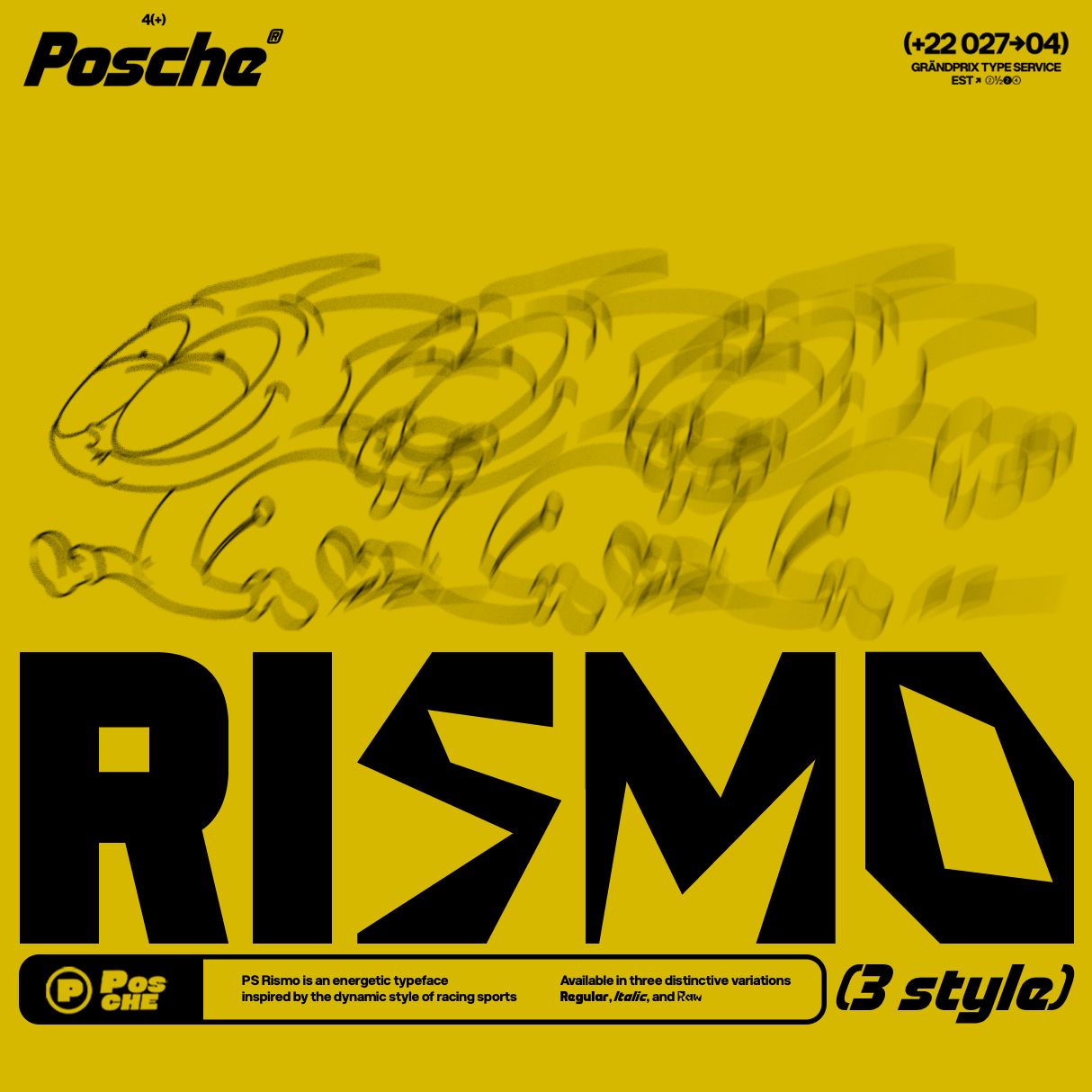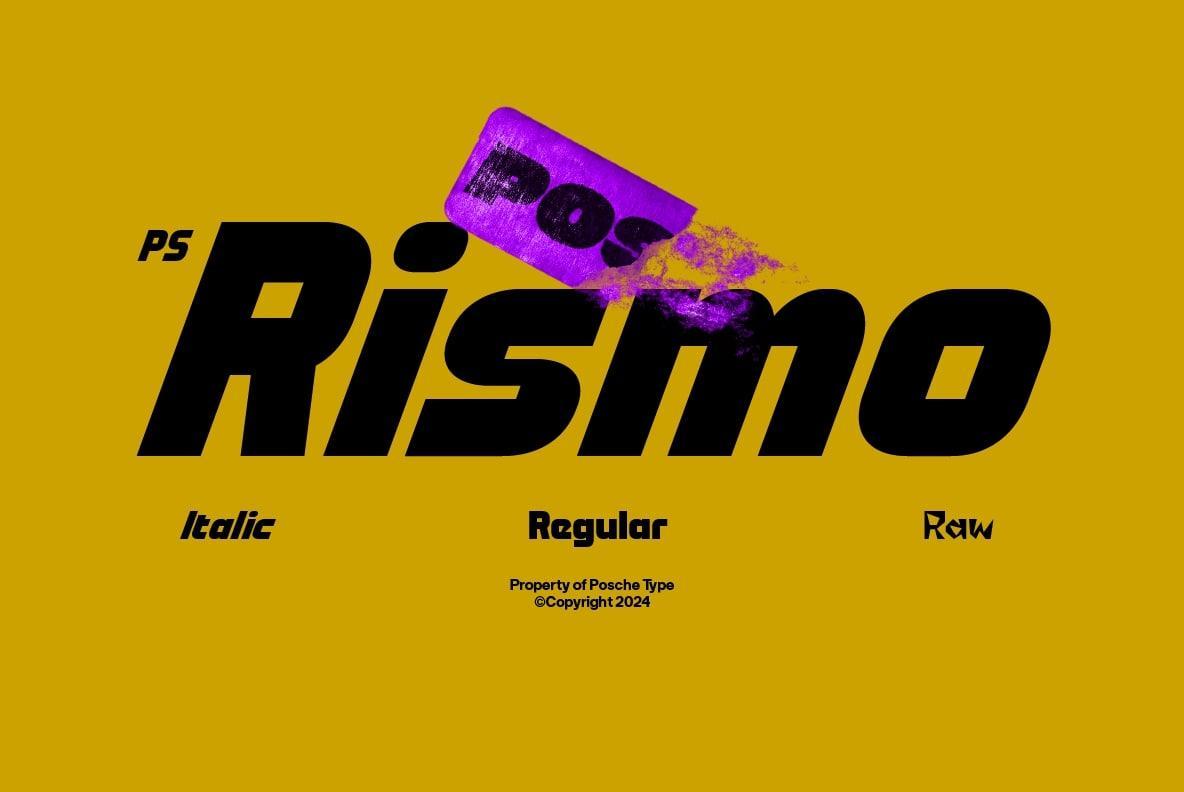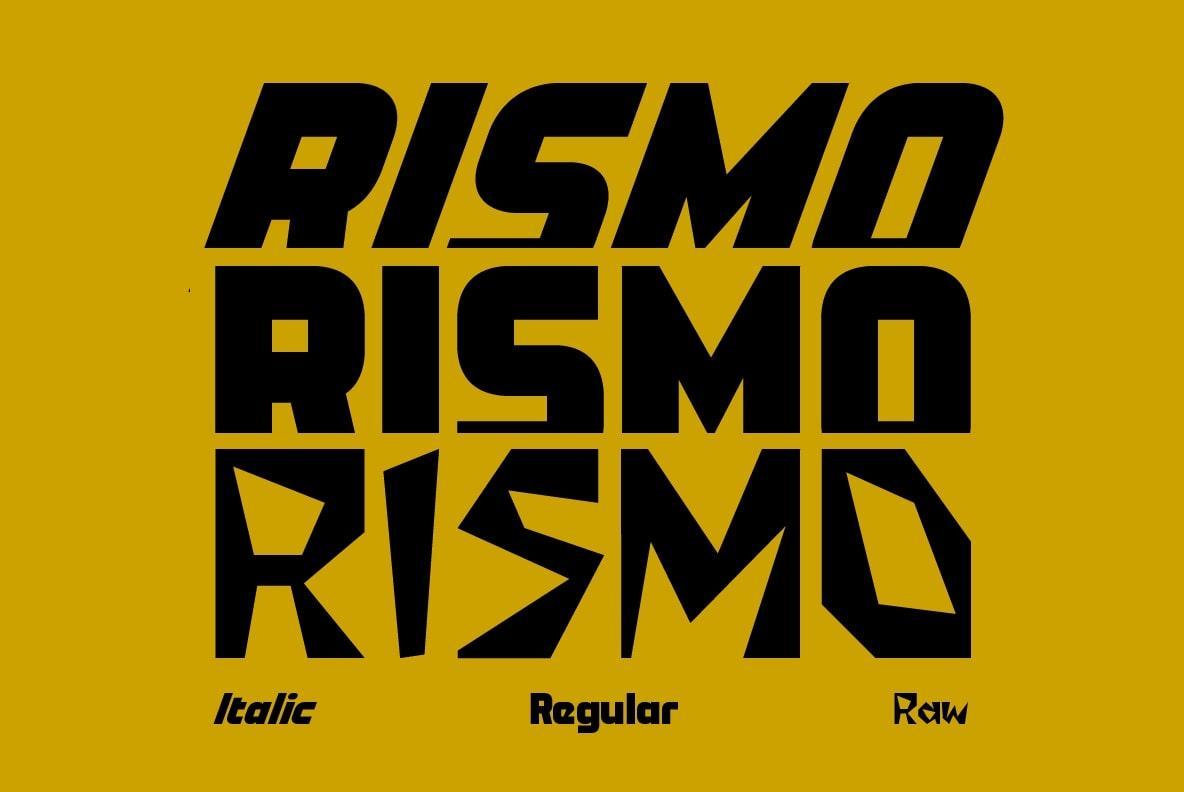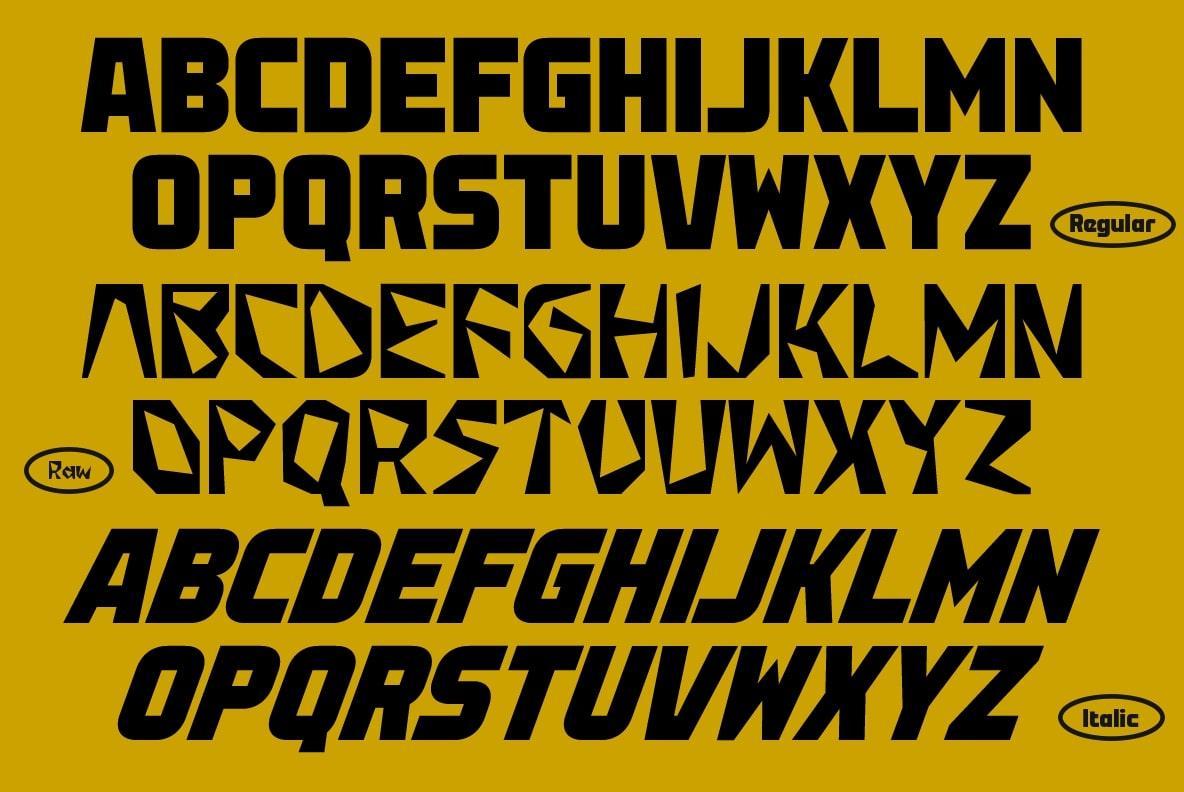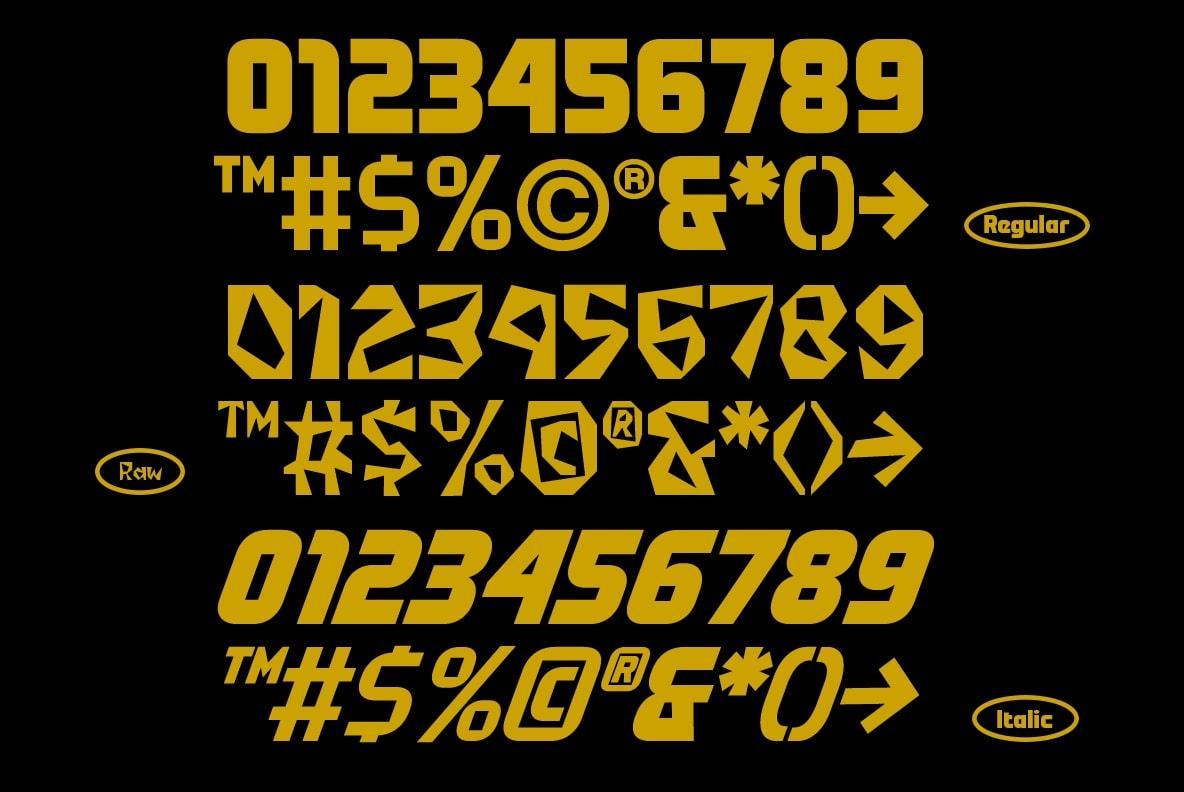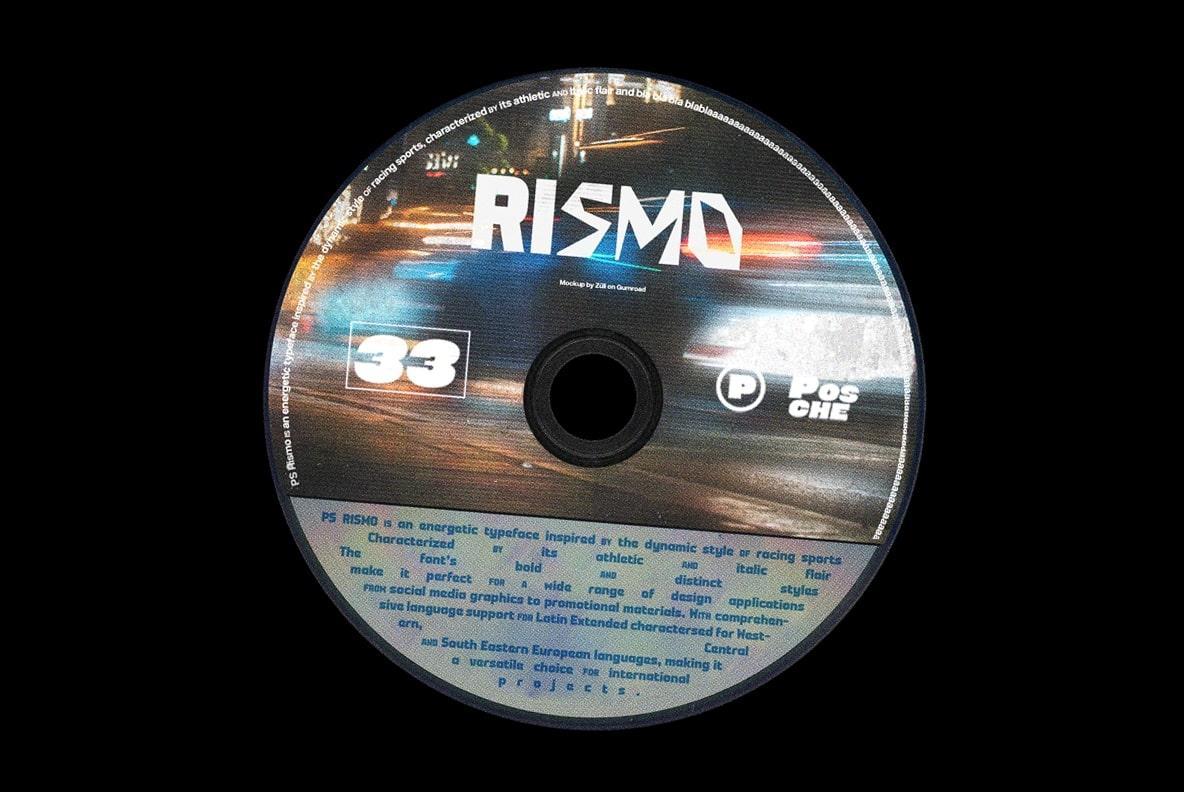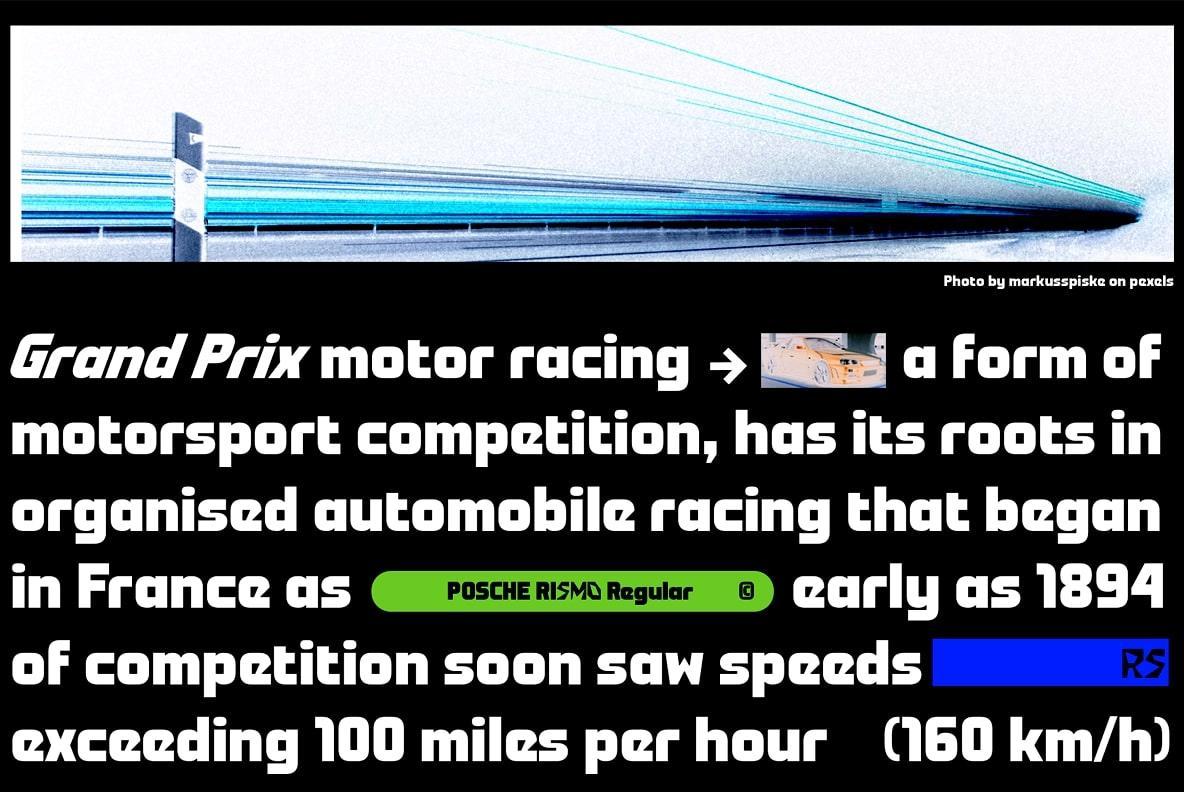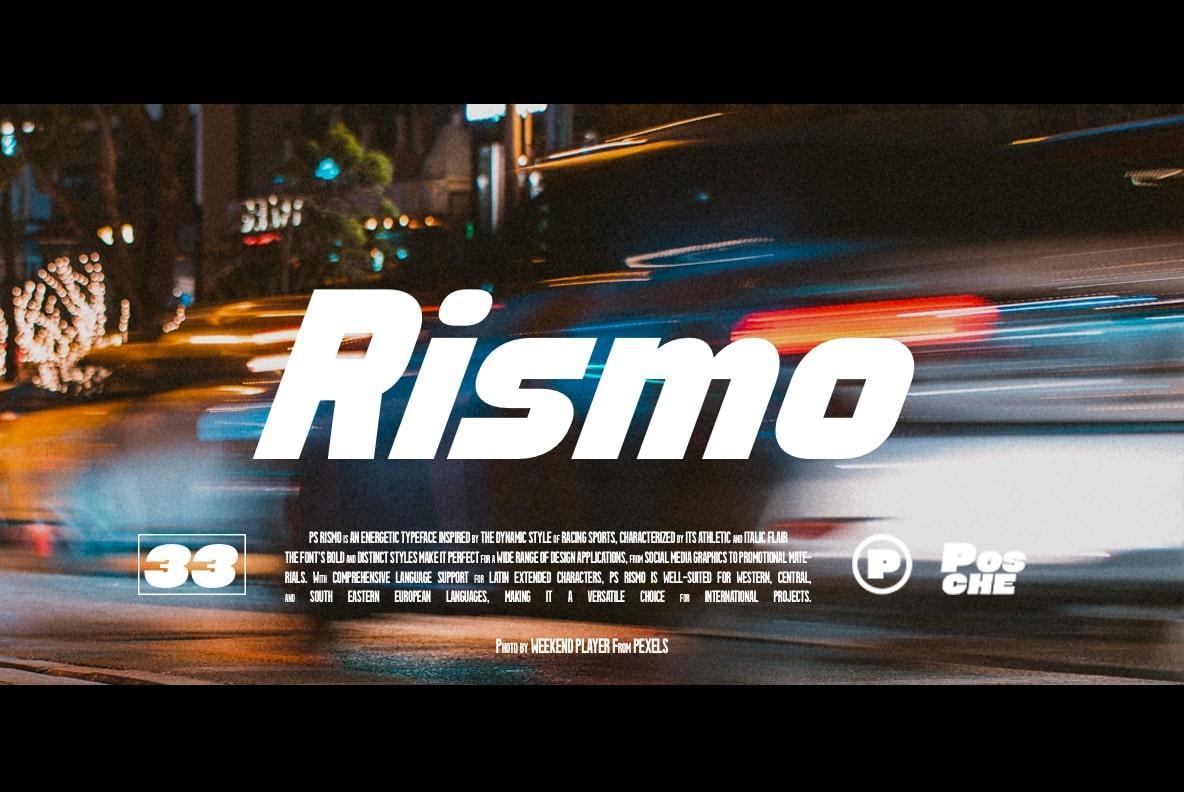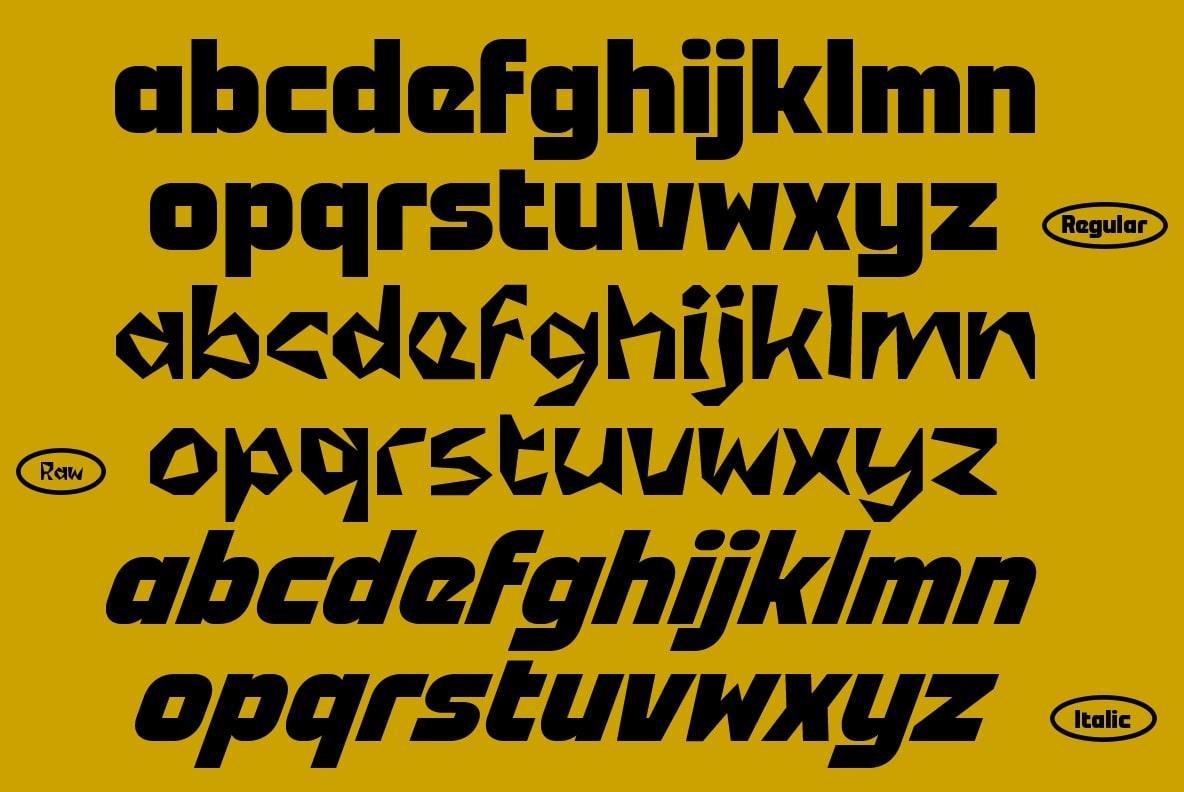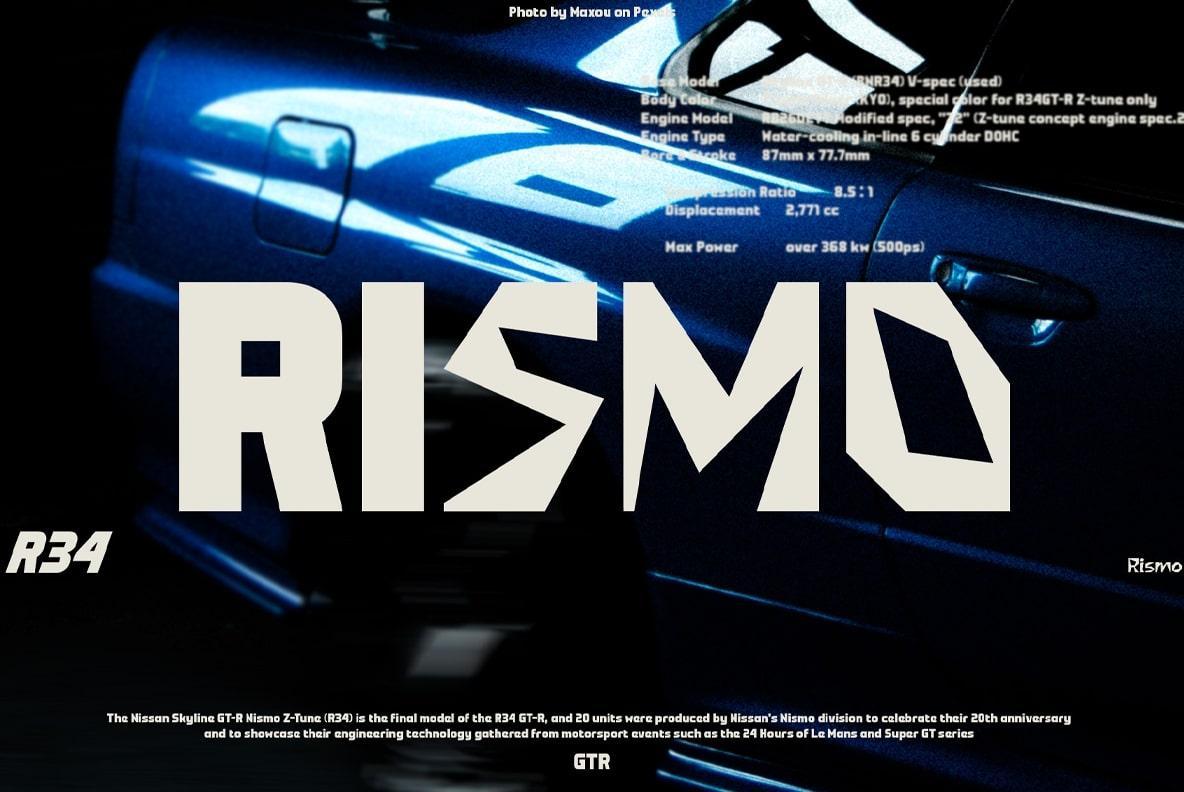
PS Rismo | Typeface Display
PS Rismo is a dynamic display typeface inspired by racing sports, available in three variations: Regular, Italic, and Raw. It features bold styles with comprehensive Latin Extended character support, making it suitable for a variety of design applications across multiple European languages.
Ideal for dynamic and contemporary graphic design projects. Perfect for headlines, posters, branding, and promotional materials, ensuring a bold visual impact that captures attention and enhances messaging.